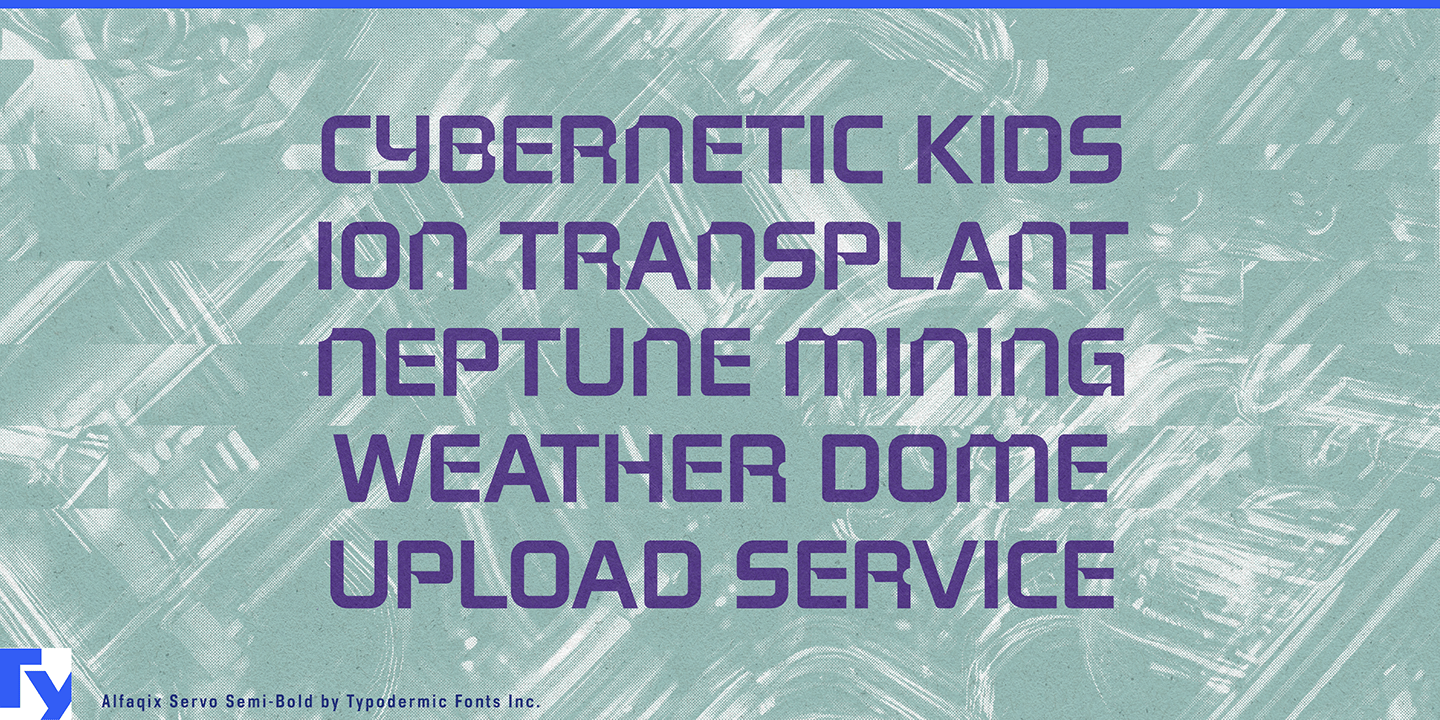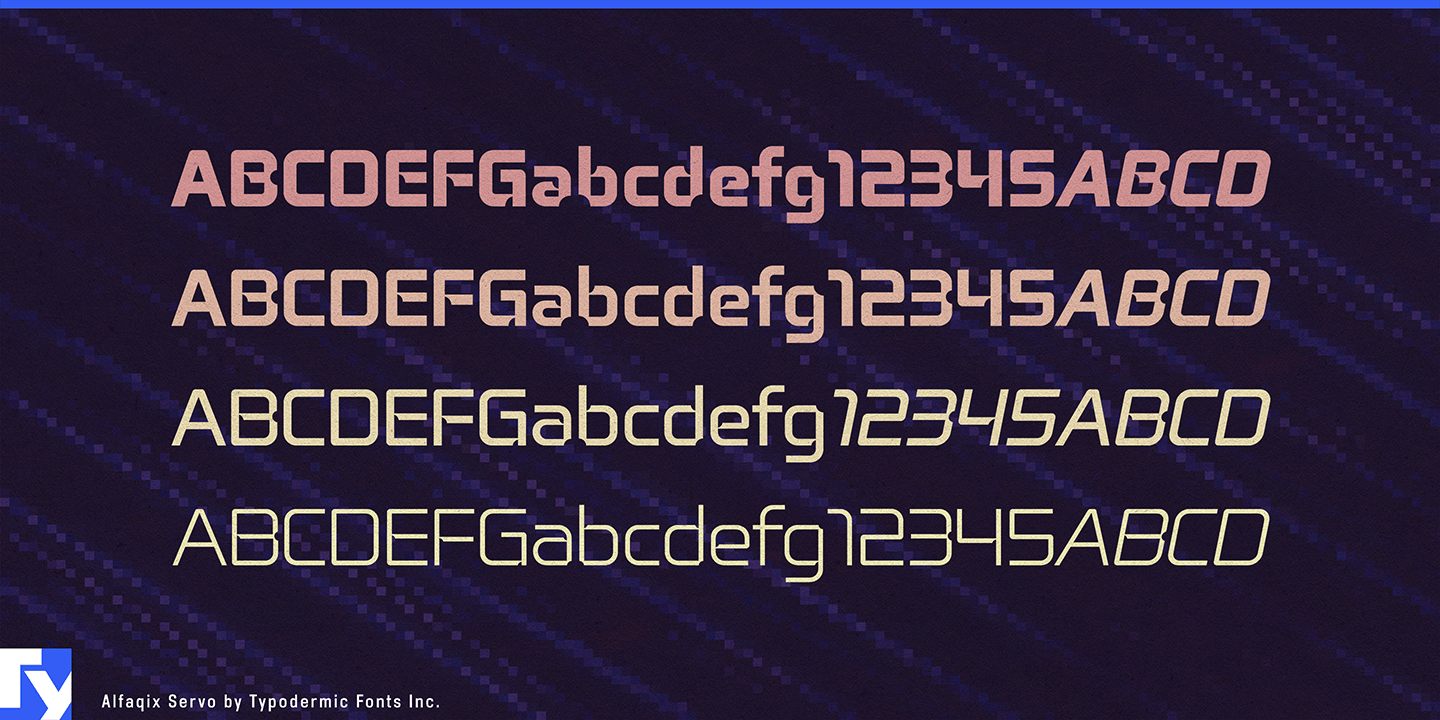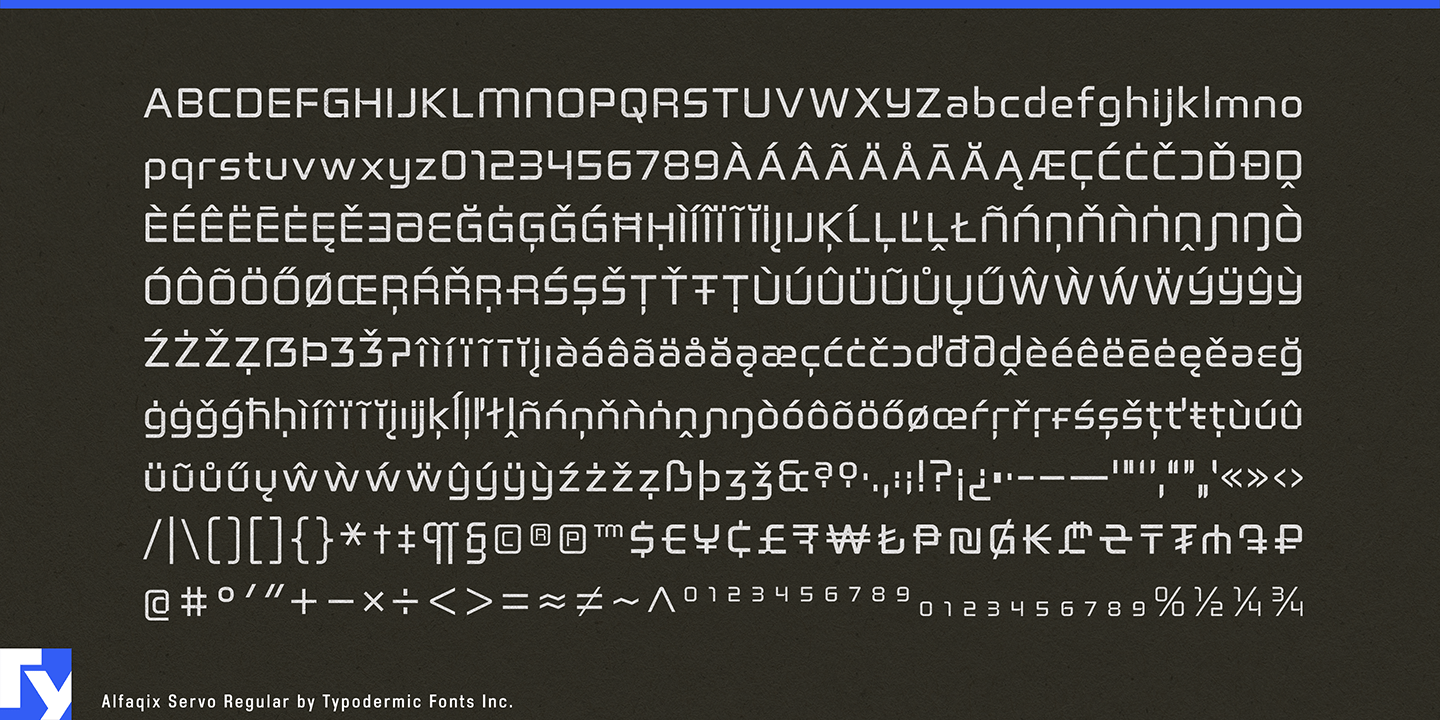
Alfaqix Servo: Typodermic Fonts’ latest innovation in robotic typography. This typeface embodies pure geometric precision, eschewing retro-futuristic clichés for a boldly progressive aesthetic. Defined by its squarish, modular structure,…